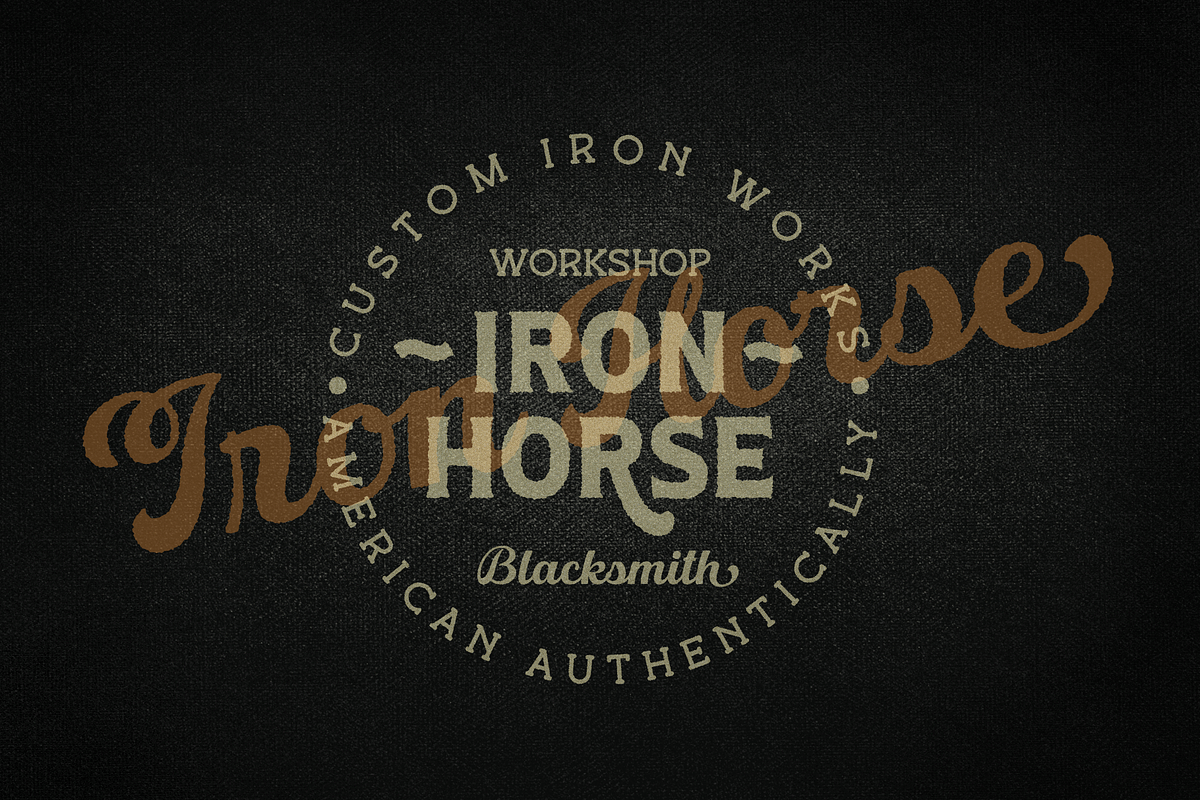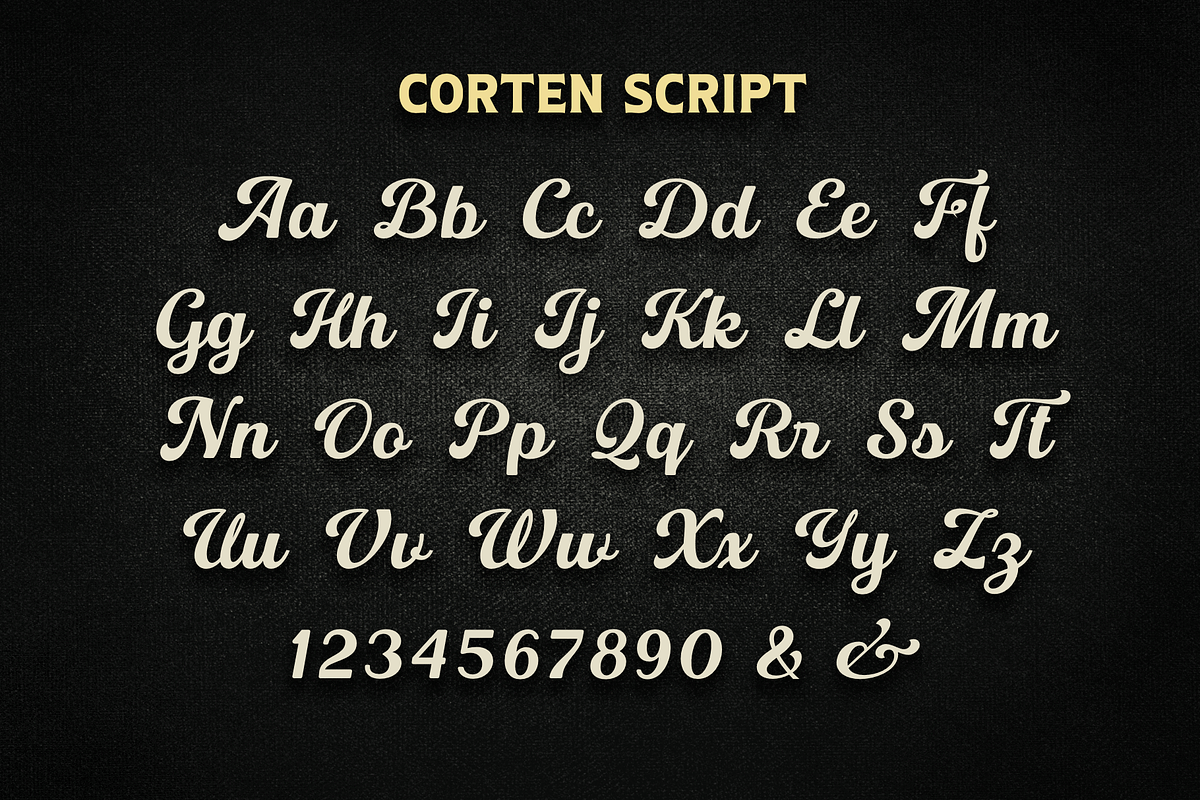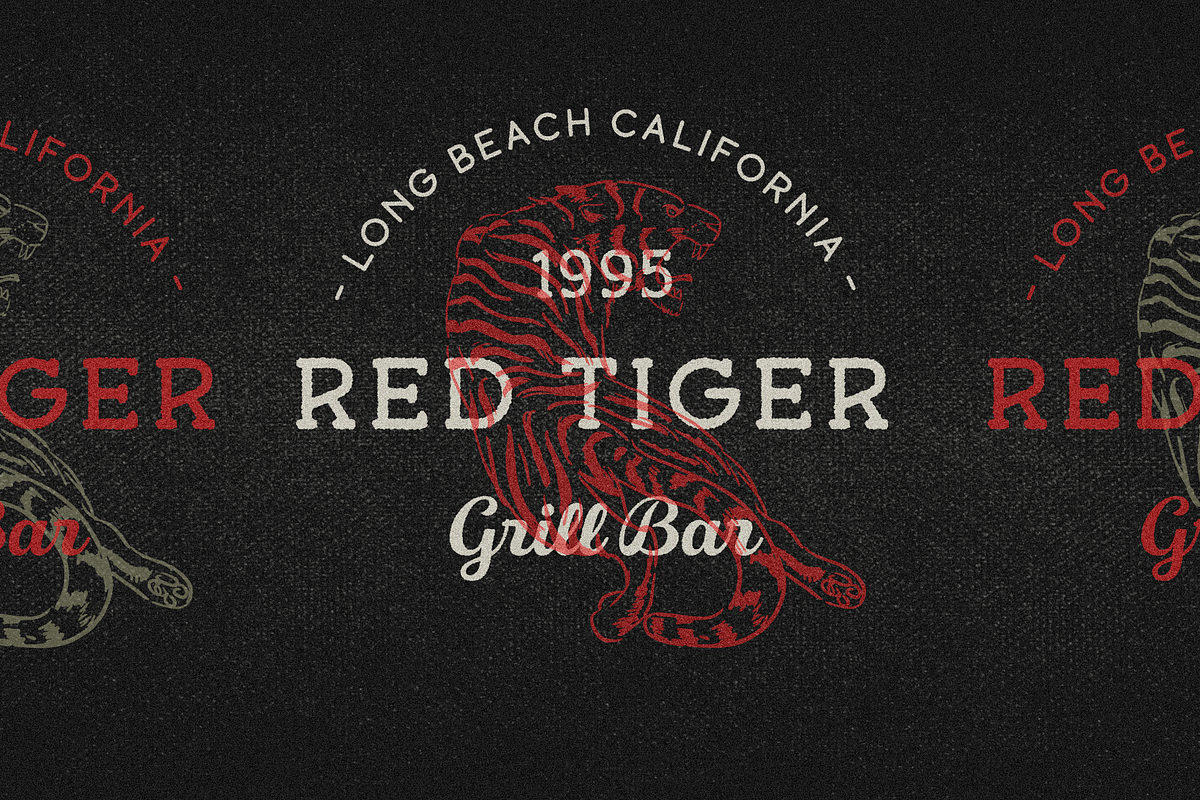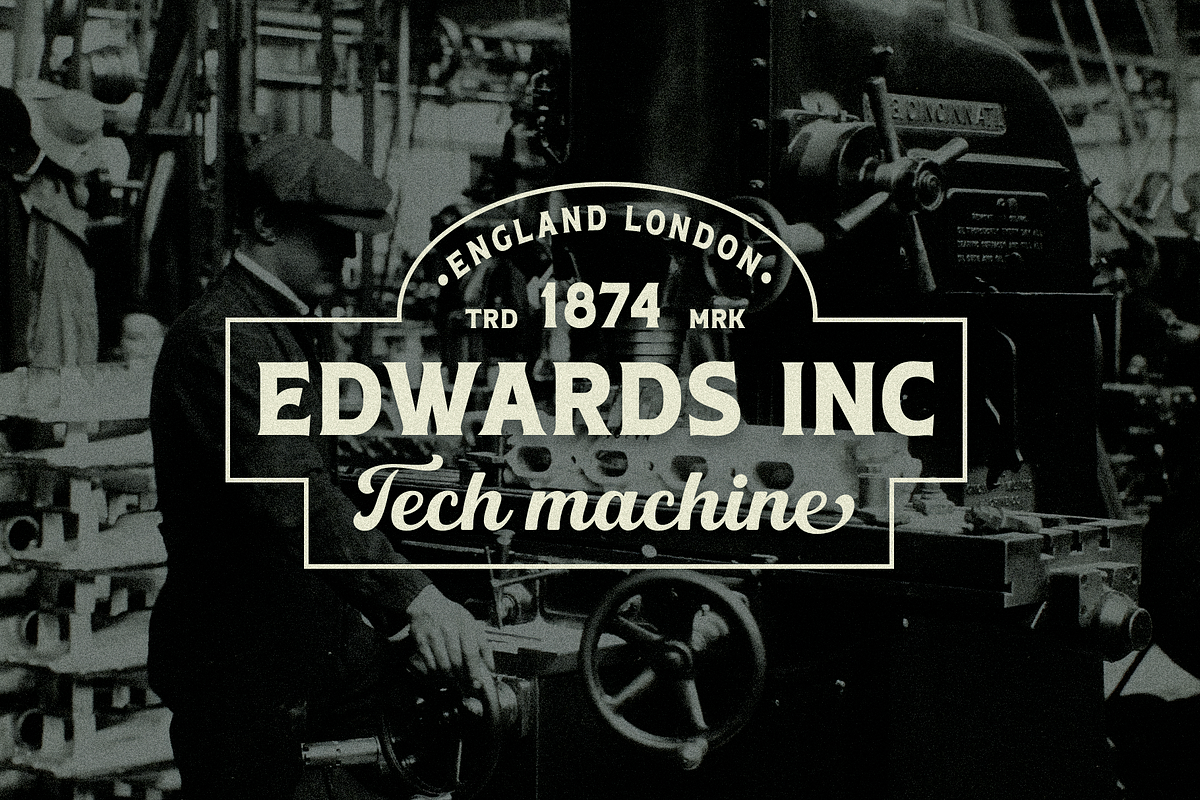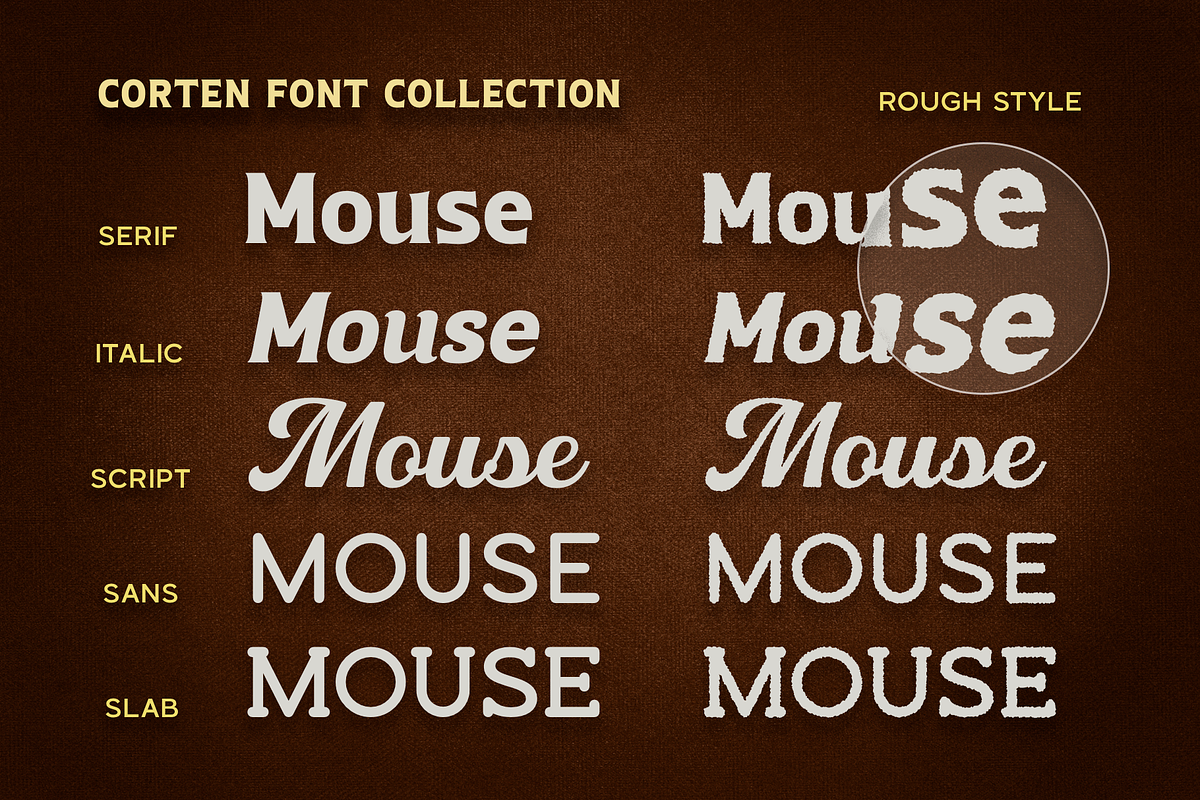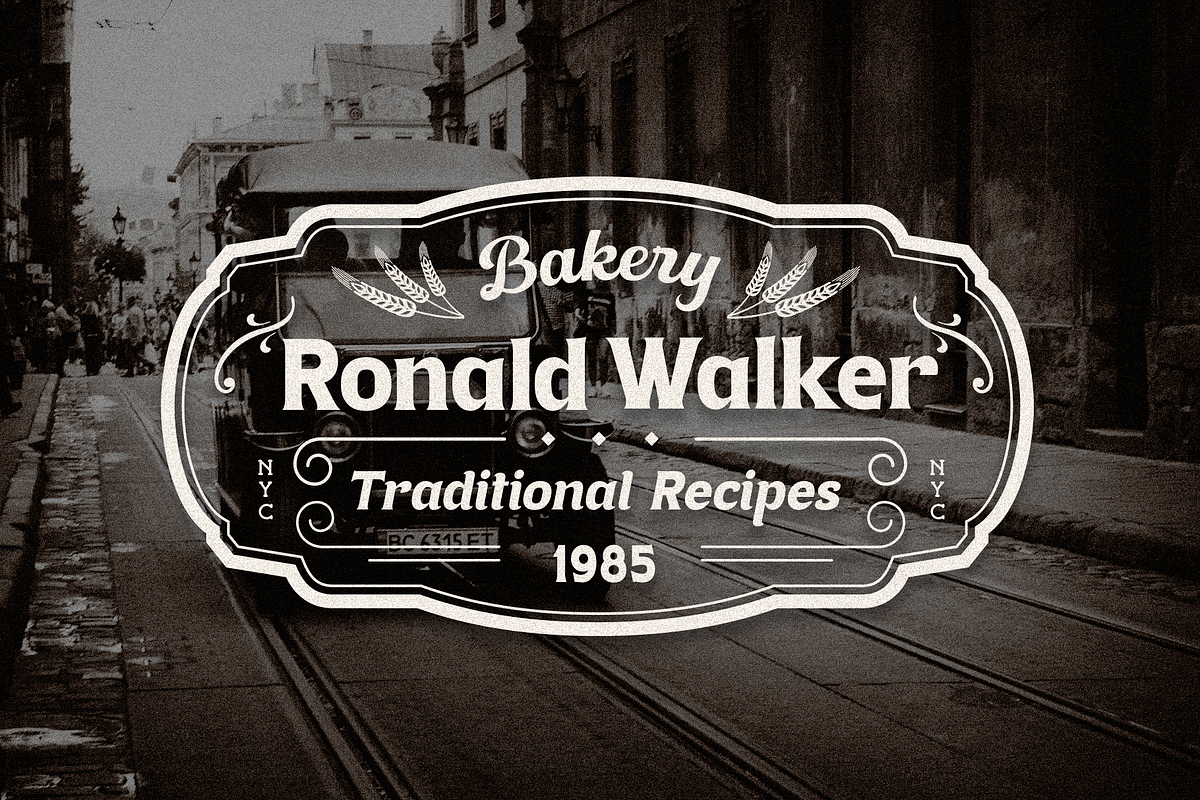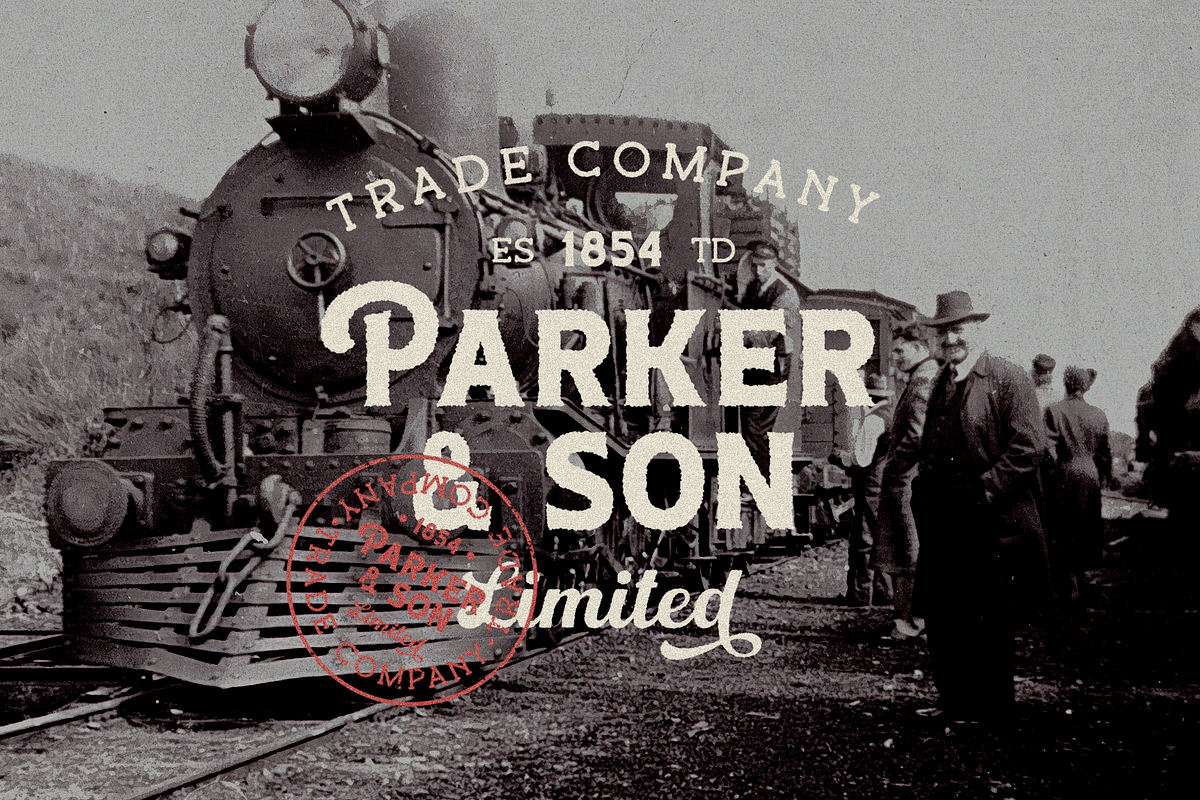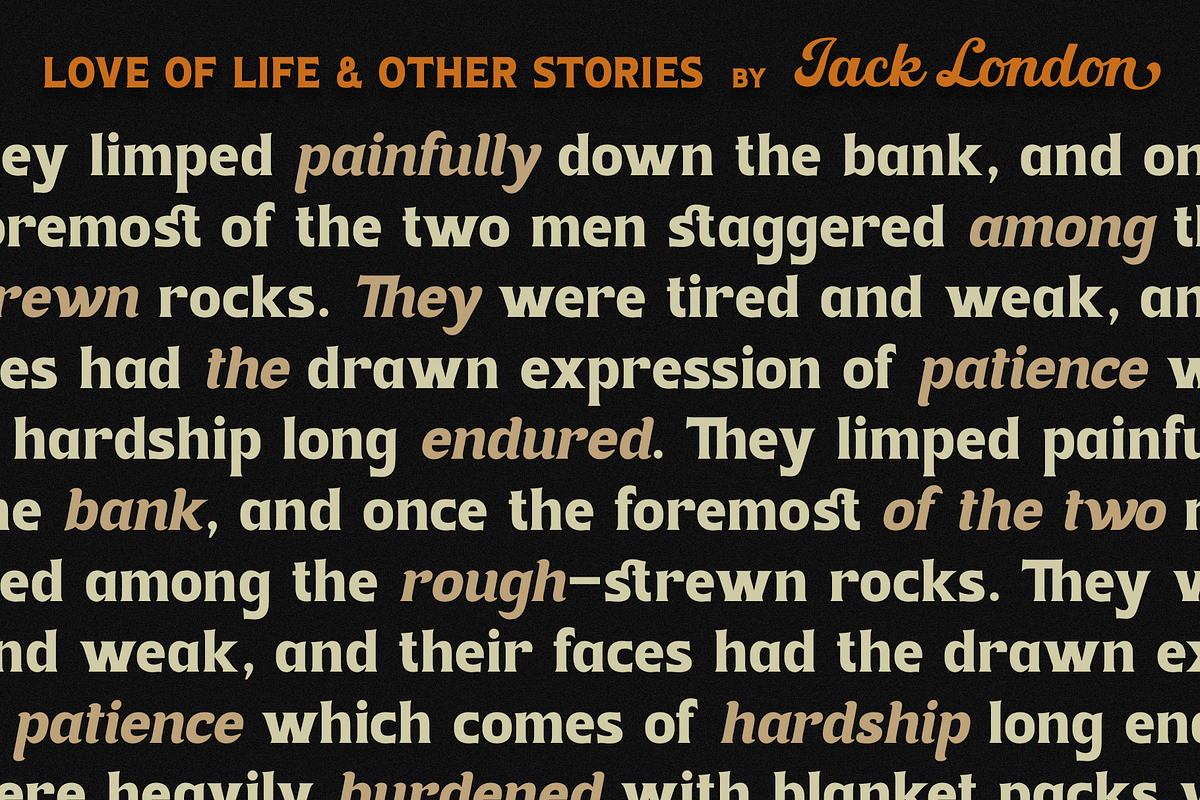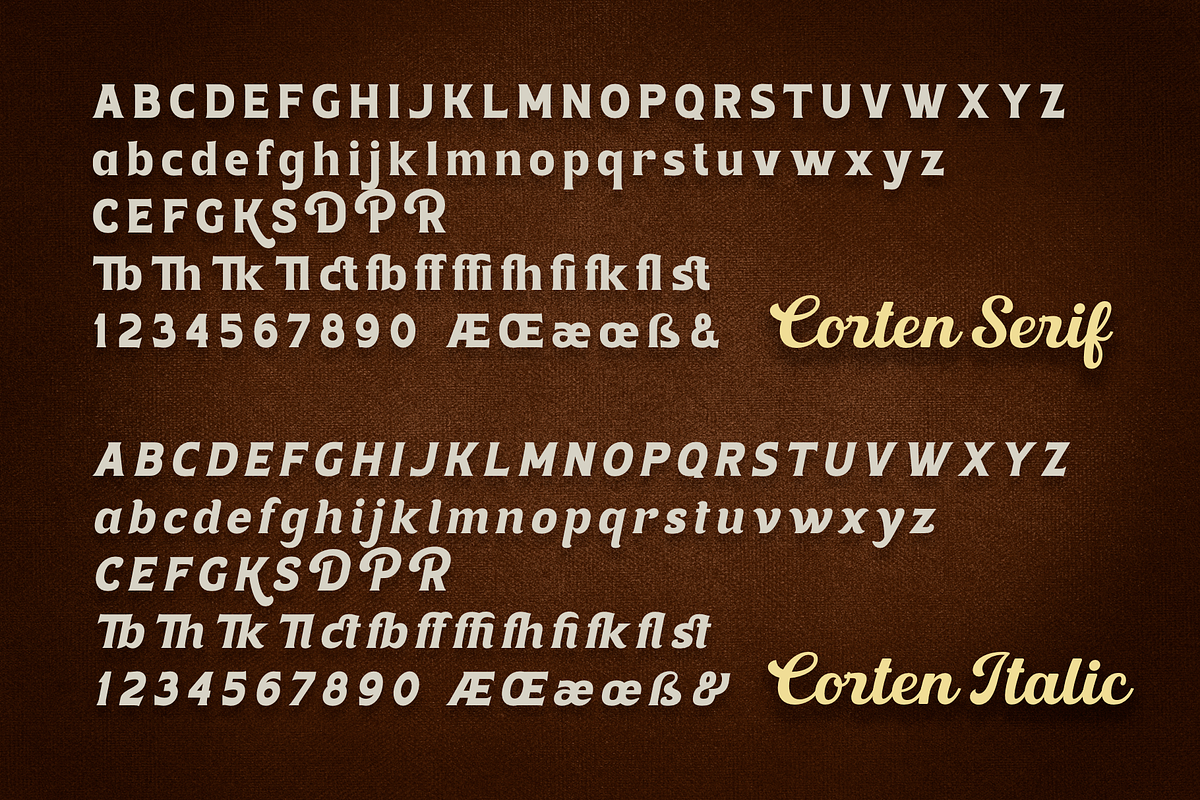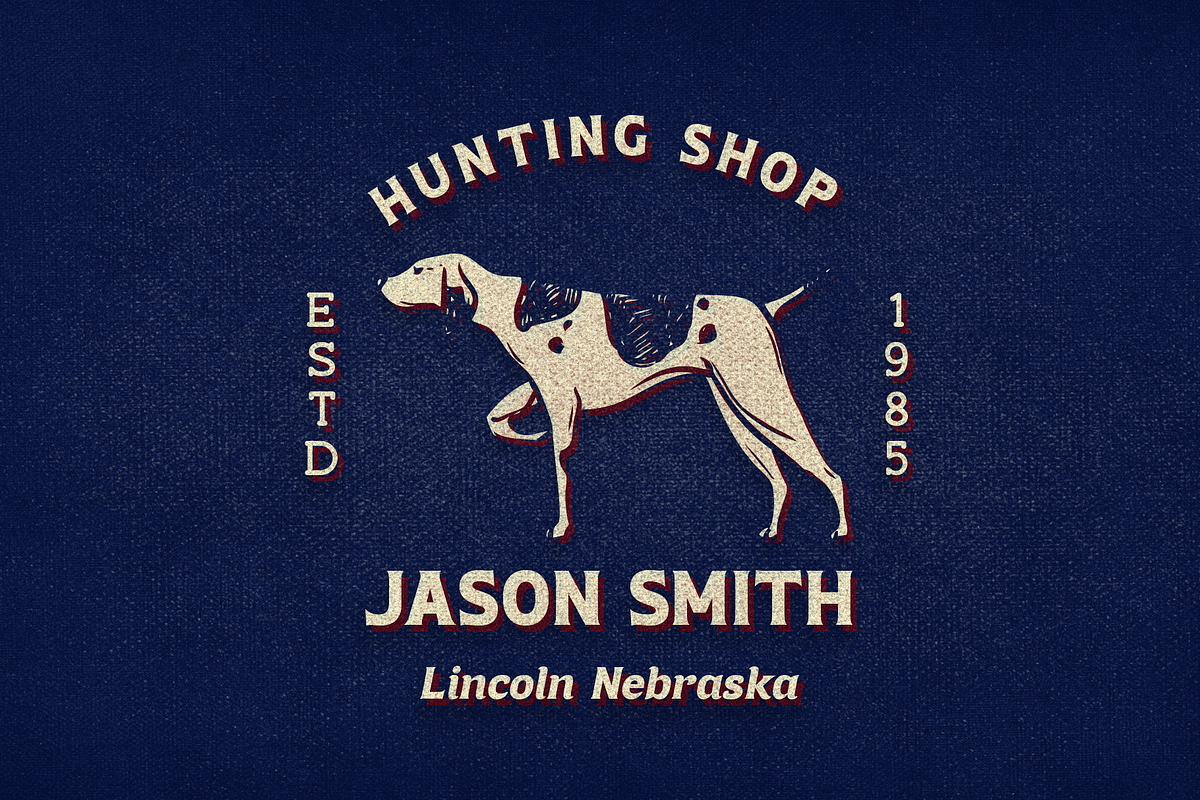
Corten
Corten is a vintage collection of fonts that includes serif, true italic, script, sans serif and slab serif each of them has two style - Clean and Rough style. Also for the script includes Alternates and Swashes. This collection was inspired by vintage signage, logos and this fonts are perfectly suitable for any vintage project and will make it at a high level. This fonts is easy to use has OpenType features.
Following international symbols support: ÀÁÂÃÄÅĄÇĆÈÉÊËĘÌÍÎÏÐÑŃŁÒÓÔÕÖØÙÚÛÜŚŠŸÝŹŻŽßàáâãäåçèéêëìíîïðñòóôõöøùúûüýÿąćęłńśšźżž
Full Capital alphabet A-Z for Sans and Slab
Full alphabet Uppercase and Lowercase A-z for Serif, Italic, Script
Numbers, fractions for Serif, Italic, Script, Sans and Slab
Punctuation and symbols for Serif, Italic, Script, Sans and Slab
Alternates for Uppercase for Serif and Script
Alternates for Lowercase for Script
Swashes for Script
Ligatures for Serif and Italic "Tb, Th, Tk, Tl, ct, fb, ff, ffi, fi, fh, fk, fl, st"
Multilingual support for Serif, Italic, Script, Sans and Slab